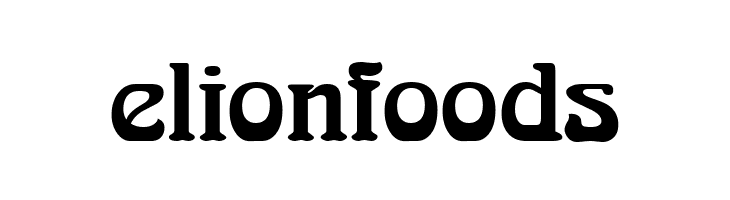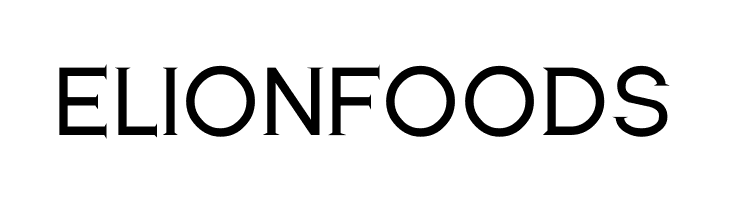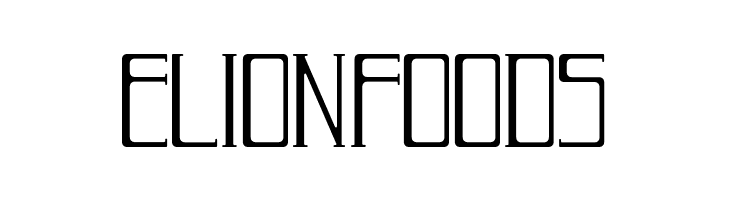
• Romande ADF Std Italic
( Fonts by Arkandis Digital Foundry )
An elegant serif font with a classic italic style and smooth, flowing lines.
• Romande ADF Std Regular
( Fonts by Arkandis Digital Foundry )
A classic serif typeface with elegant, refined strokes and balanced proportions.
• Romande ADF Style Std Demi Bold
( Fonts by Arkandis Digital Foundry )
A classic serif font with bold, elegant characters and moderate contrast.
• Romande ADF Style Std Regular
( Fonts by Arkandis Digital Foundry )
A classic serif font with elegant, refined strokes and balanced character design.
• RomanDecoNormal
( Fonts by Tomas Carrico )
A geometric, decorative font with tall, narrow letterforms and subtle serifs.
• Romanesco
( Fonts by Astigmatic )
A bold, dynamic script font with high contrast and elegant flourishes.
• Romanesco
A dynamic script font with elegant calligraphic influences and dramatic flourishes.
• Romanesque Serif Regular
A classic serif font with sharp serifs and balanced proportions, ideal for traditional and authoritative designs.
• Romaneste Regular
• RomanGridCaps
A structured, high-contrast serif font with a classic Roman architectural influence.